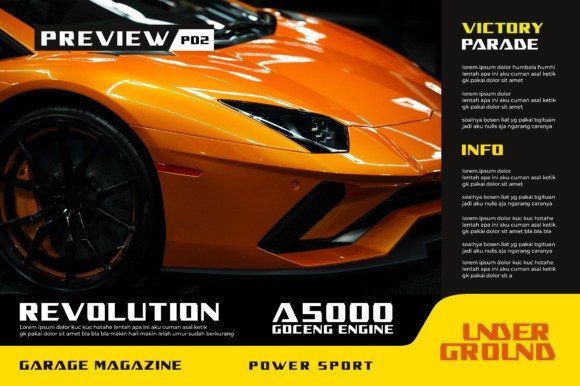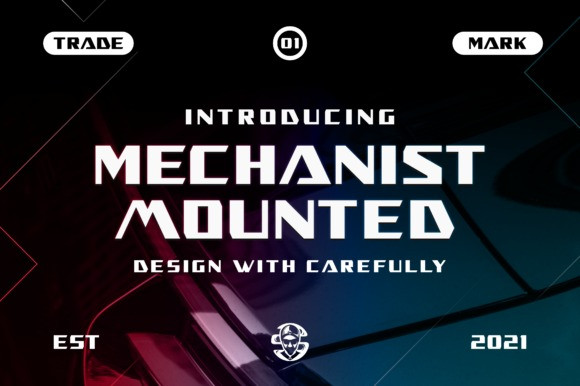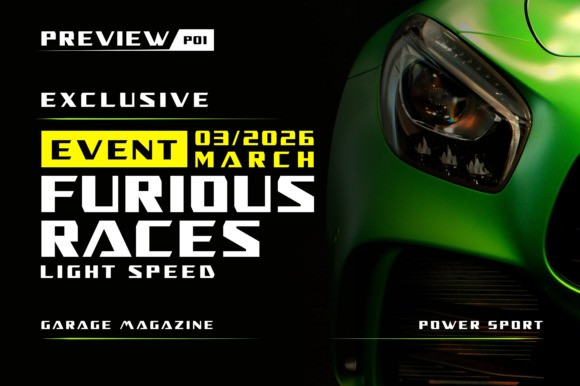
Mechanist Mounted Font
Mechanist Mounted Display Font is a robotic and bold display font. Add it confidently to your favorite creations and let yourself be amazed by the outcome generated.